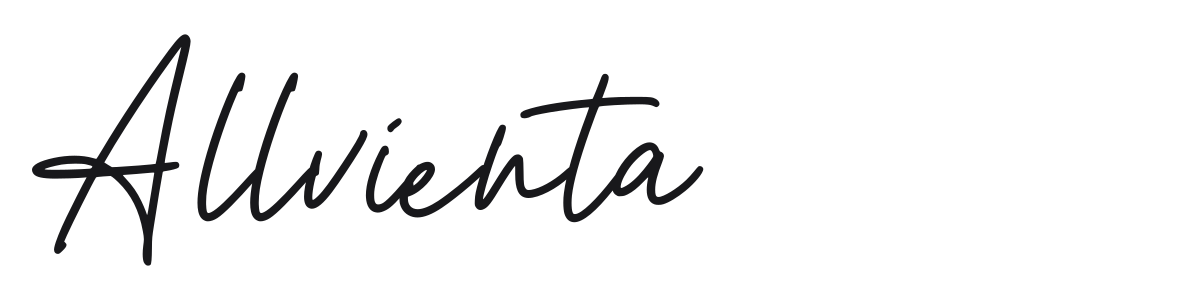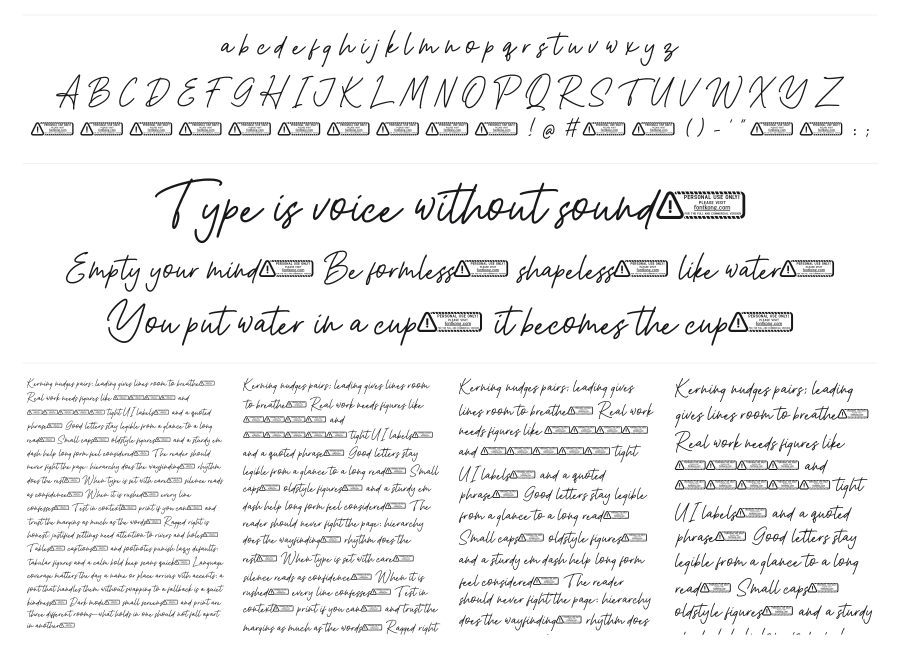
Allvienta
Allvienta is a casual monoline script with a loose, natural handwritten flow and consistent thin stroke weight. The relaxed baseline bounce and open looping connections give it an effortless, pen-written quality that feels current without trying too hard. It works well at larger sizes for logos, packaging, and social content where a light, approachable tone is needed.